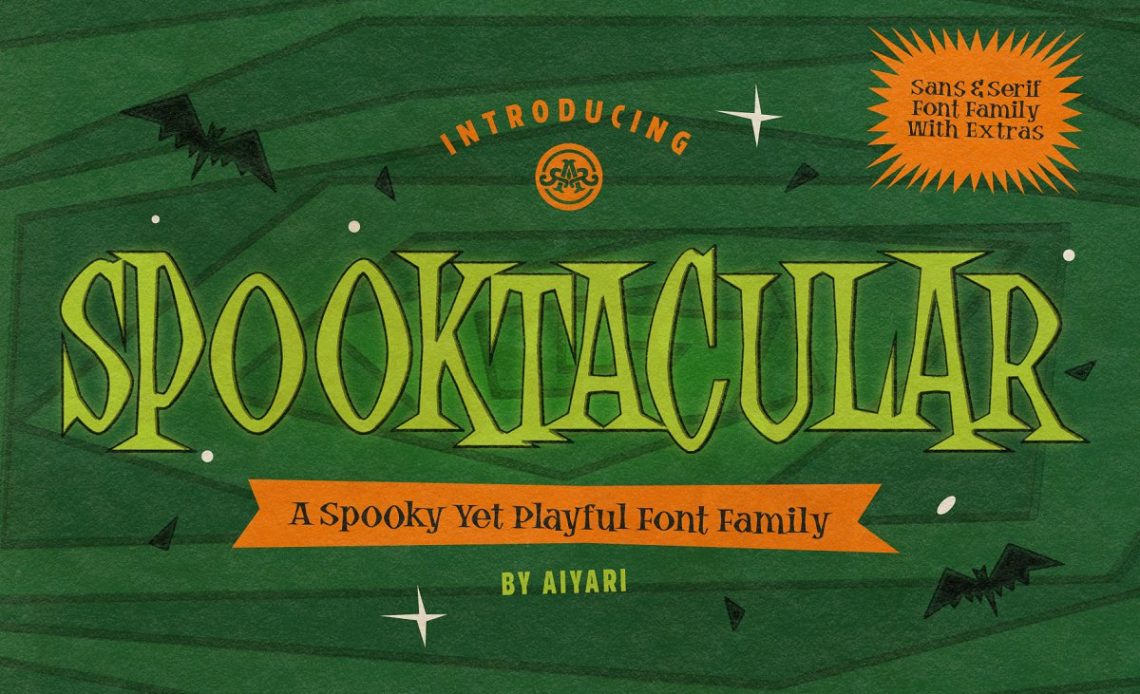
Looking for the best fonts for your scary stories? Look no further than Spooktacular Font Family + Extras, created by the talented Ricky Rinaldi. This font family is the perfect fusion of the beatnik movement of the 1950s, vintage horror movies, and vintage comics. Spooktacular offers the magic of open type features such as contextual alternate and stylistic alternate, which make the typeface look more playful.
Not only that, Spooktacular comes with extra doodle dingbats to make your design look perfect. This versatile font family is best used for headings, logo types, quotes, apparel design, invitations, flyers, posters, greeting cards, product packaging, book covers, printed quotes, cover albums, movies, and more.